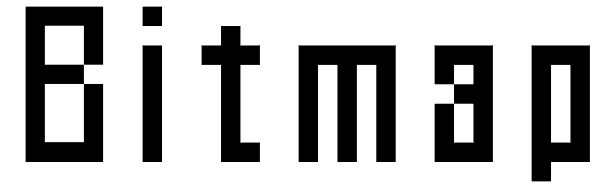
Bitmap
Building a modular digital typeface is like playing with the pieces of a Lego. Possible combinations are induced by the shapes of the pieces. All designers must have tried something like this once. Bitmap is a simple unpretentious font. It is the...